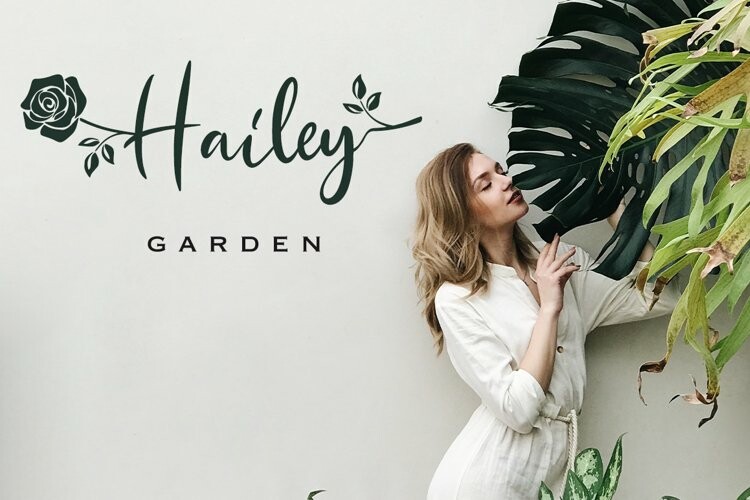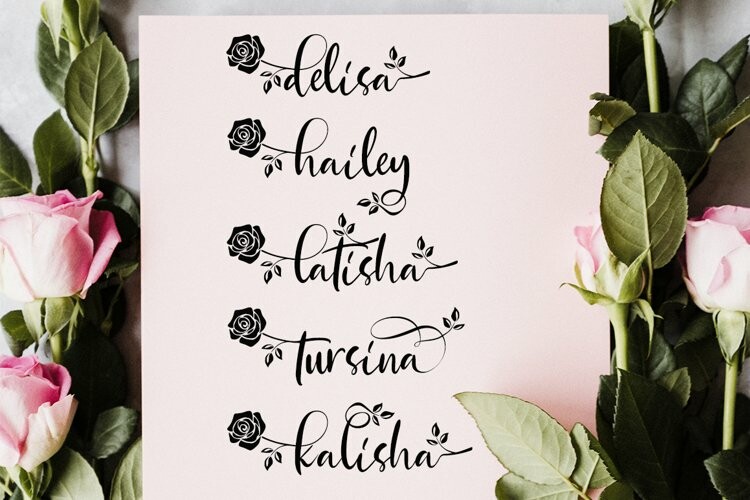
Bestina Font
Bestina FontBestina Modern Calligraphy. This font was designed by handwriting, and it has a modern and unique forms of calligraphy, the writing style is very natural. Bestina has a very unique style of calligraphy, it is very suitable for use in the work of modern design.